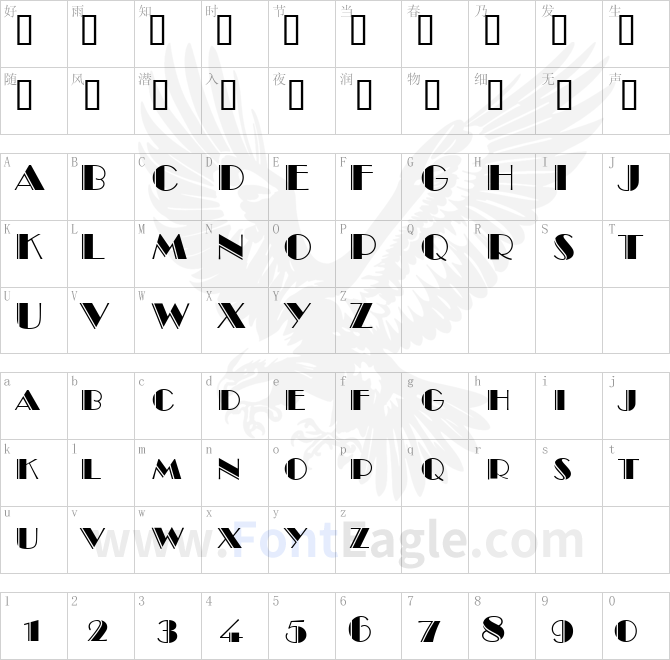
- Font name:Broadway-Engraved-Caps
- Font Subfamily ID:SoftMaker Software GmbH Broadway-Engraved-Caps-Regular
- Font Full Name:Broadway-Engraved-Caps-Regular
- Postscript:BroadwayEngravedCaps